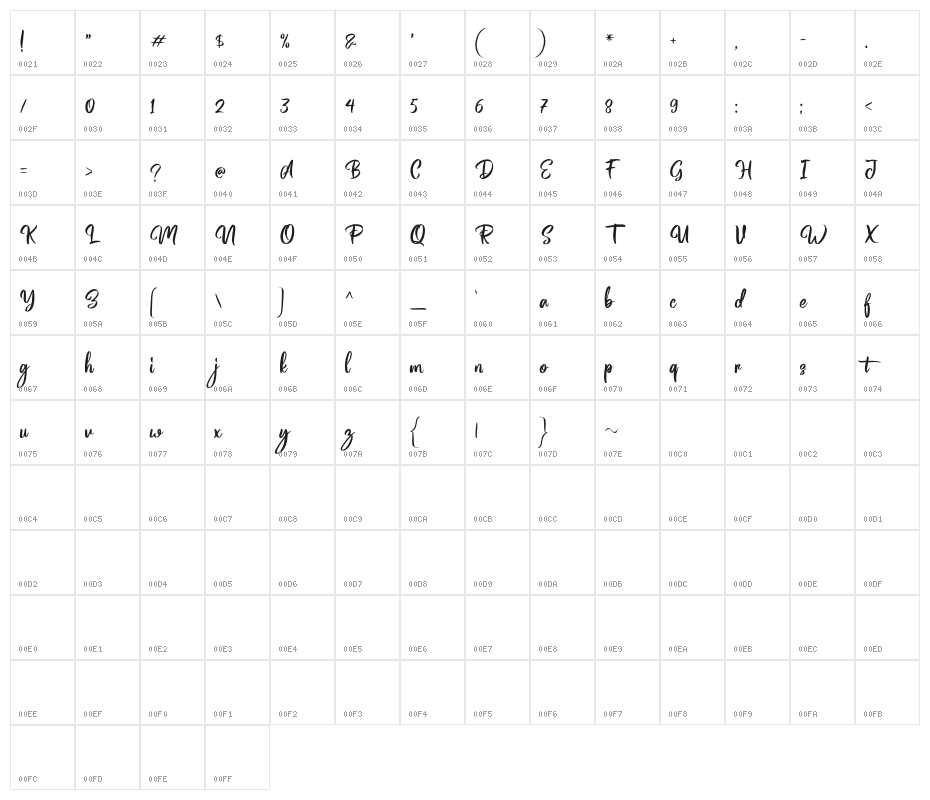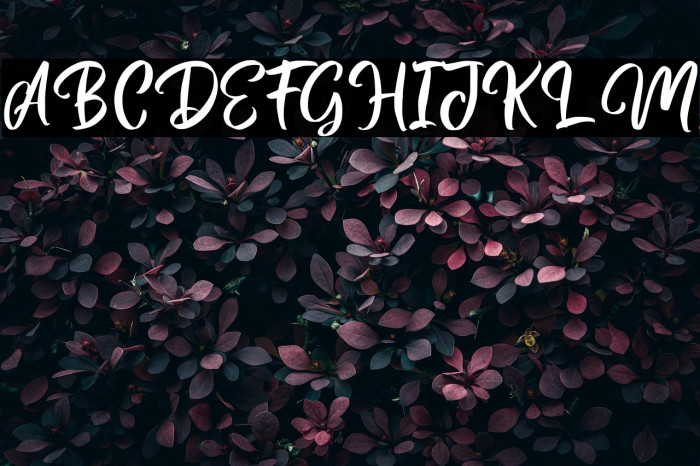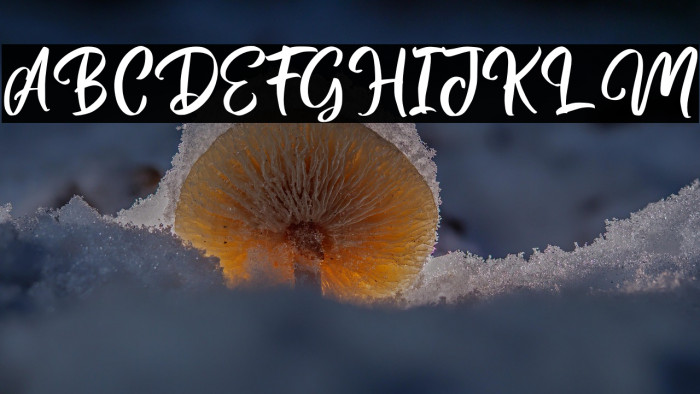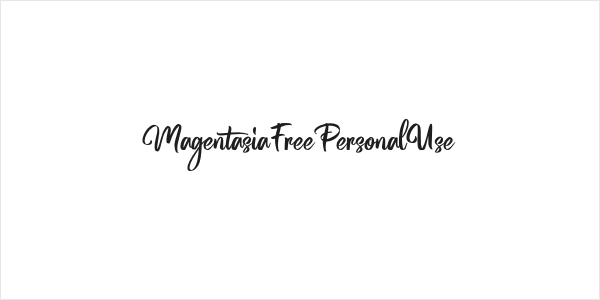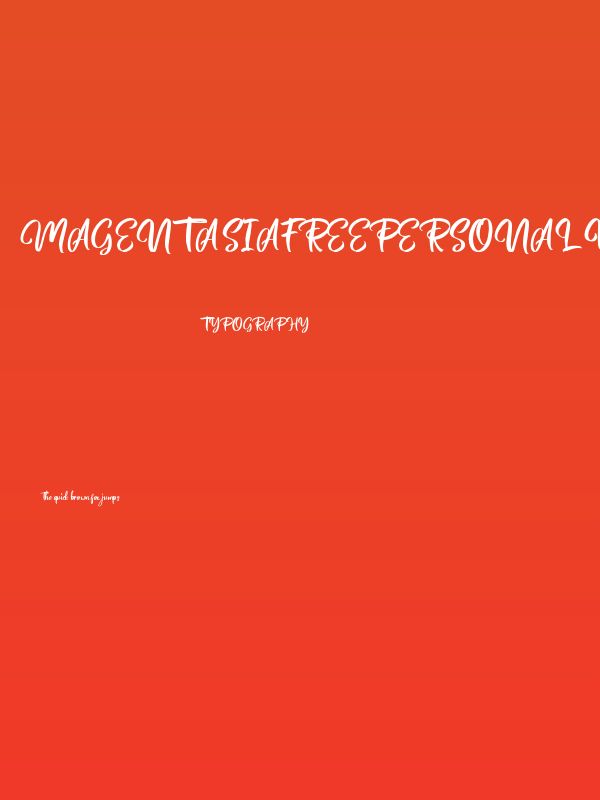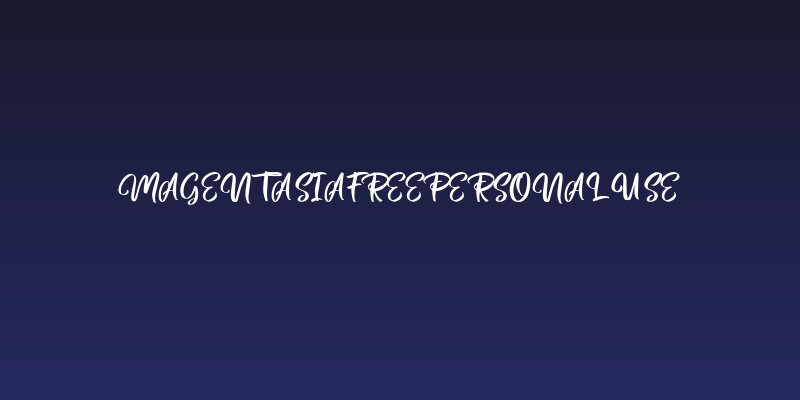
MagentasiaFreePersonalUse Font
MagentasiaFreePersonalUse Description
This font features a dynamic and flowing script style, characterized by its elegant and cursive letterforms. The uppercase letters are bold and sweeping, with a distinct flair that adds a sense of movement and sophistication. The lowercase letters maintain a consistent flow, enhancing readability while preserving the artistic quality. Numbers and special characters are crafted with the same attention to detail, ensuring a cohesive look across all elements. The font's overall appearance is both stylish and versatile, making it suitable for a variety of design applications.